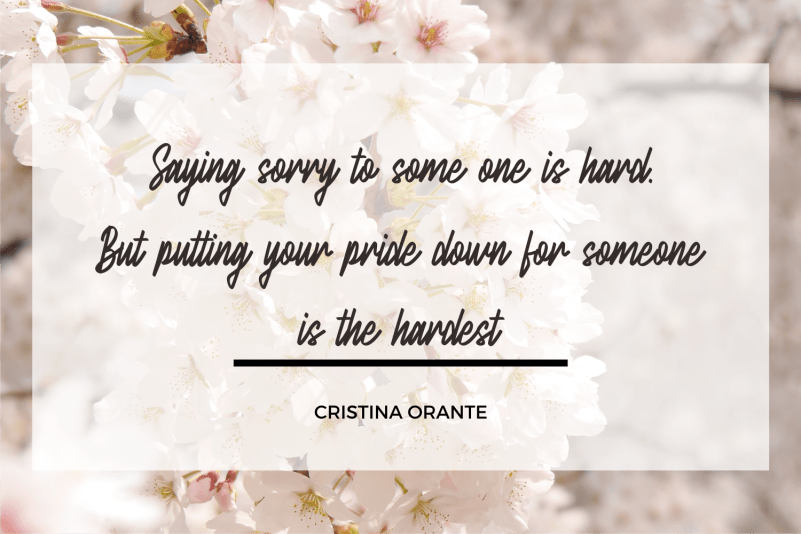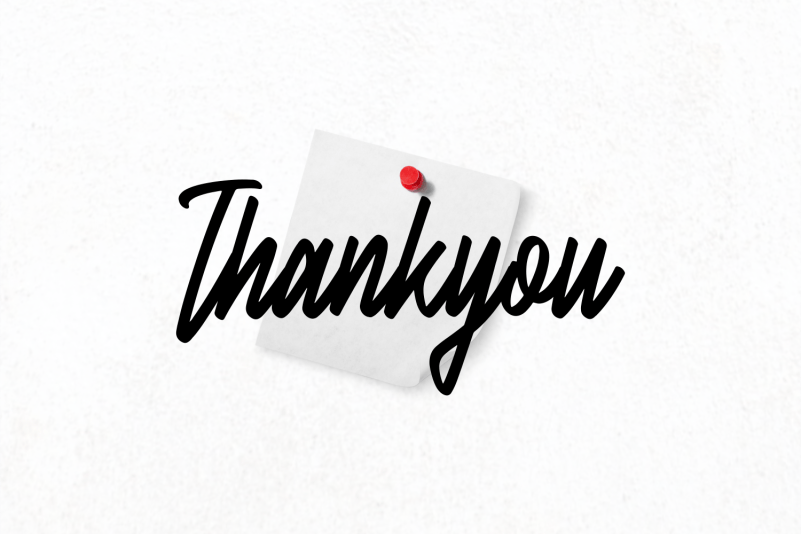
Tomiley Font
Tomiley Handwritten Font is a sweet and subtle handwritten font that is crafted with great care for maximum results. It will add elegance and class to any of your design projects.